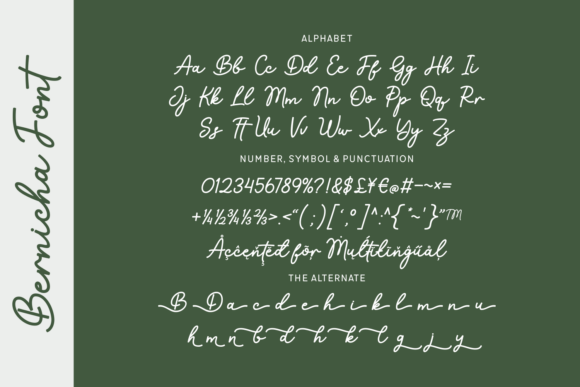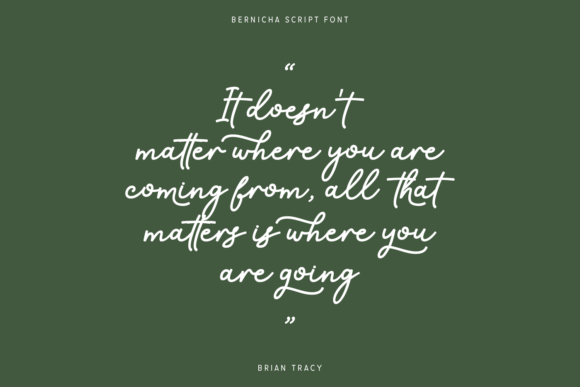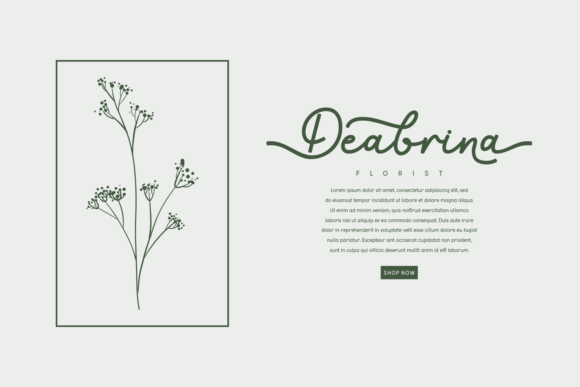
Discover the Perfect Script Font for Your Next Project
Have you ever stared at a blank canvas, searching for the perfect font to bring your design to life? We’ve all been there – the cursor blinks, the clock ticks, and the pressure mounts. But what if you could find a font that effortlessly elevates your creative vision, making every design decision a breeze? Enter the Bernicha Font, a sleek monoline script font that’s about to become your new go-to.
This elegant font is designed to add a touch of sophistication to any project, from logos and branding to wedding stationery and social media graphics. Its clean and smooth design makes it perfect for modern creatives who crave a versatile font that can adapt to any format. Whether you’re a seasoned designer or a budding artist, the Bernicha Font is an invaluable asset that will take your designs to the next level.
Bernicha Font Key Features
- Unique Characteristics: This font features a unique blend of modern and traditional elements, with intricate details and ornaments, making it suitable for high-end designs and publications.
- Script and Language Support: Bernicha Font supports a wide range of languages, including Latin, Cyrillic, and Greek scripts, making it a versatile choice for global designs.
- Kerning and Ligatures: The font includes advanced kerning and ligature features, ensuring smooth text flow and improved readability.
Design Review: Bernicha Font
As a designer, I’ve had the chance to work with various fonts, and Bernicha Font is one of them. Here’s my honest review.
- Unique aesthetic: Bernicha Font has a distinctive look that can add a touch of elegance to any design.
- Legibility: The font is highly legible, making it suitable for body text and longer passages.
- Wide range of weights: Bernicha Font comes in various weights, allowing designers to experiment with different styles.
- Limited language support: Bernicha Font might not be optimized for languages that require more complex typography.
- Not suitable for small text: Due to its unique design, Bernicha Font might not be the best choice for small text sizes.
- Overly ornate: Some designers might find the font too ornate or distracting, which can be a drawback.
Overall, I think Bernicha Font is a great addition to any designer’s toolkit. While it has its limitations, its unique aesthetic and legibility make it a solid choice for various design projects.
The Bernicha font is a great choice for:
- Creating elegant and sophisticated designs.
- Adding a touch of luxury to your branding materials.
- Designing invitations and event materials.
- Creating high-end digital products.
Alternatives to Bernicha Font
Abril Fatface is an elegant, luxurious script font. It is ideal for use in wedding invitations, luxury brand logos, and any other design that requires a touch of sophistication and glamour. Abril Fatface has a similar feel to Bernicha Font, but it is more refined and delicate.
Carolyna Pro is a modern, elegant script font that is perfect for use in high-end branding, packaging, and advertising. It has a similar flow and connection to Bernicha Font, but it is more fluid and dynamic. Carolyna Pro is ideal for designers who want to create a sense of luxury and sophistication.
Playfair Display is a luxurious, elegant serif font that is perfect for use in high-end branding, packaging, and advertising. It has a similar level of sophistication to Bernicha Font, but it is more ornate and decorative. Playfair Display is ideal for designers who want to create a sense of opulence and glamour.